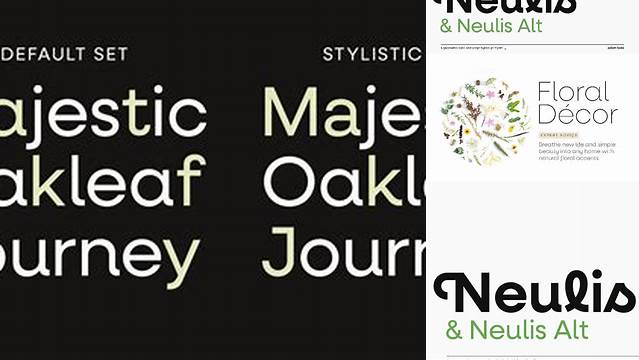
Hey guys, are you on the hunt for a stunning and versatile font family to elevate your design projects? Look no further! The Neulis Family Font is a fantastic choice, offering a blend of elegance and readability that's perfect for a wide range of applications. And the best part? You can often find a Neulis Family Font free download, making it accessible for personal and even commercial use in some cases. In this article, we'll dive deep into everything you need to know about the Neulis Family Font, covering its features, uses, and how to get your hands on this beautiful typeface. From understanding the different styles within the family to where you can safely download it, we'll equip you with all the info you need to make the most of this incredible font. So, buckle up and let's explore the world of Neulis!
As a designer, finding the right font can be a game-changer. It can transform a simple design into something truly captivating and memorable. The Neulis Family Font, with its clean lines, modern feel, and various weights, is designed to do just that. It offers a professional and polished look that works wonders for branding, web design, print materials, and more. We'll also touch on important aspects such as licensing, ensuring you're using the font legally and ethically. Whether you're a seasoned designer or just starting out, this guide will provide you with valuable insights and resources to help you make the most of the Neulis Family Font. This is going to be a fun ride, so let's jump in!
What Makes the Neulis Family Font Special?
Alright, let's talk about what makes the Neulis Family Font stand out from the crowd. This font family usually boasts a range of weights and styles, allowing you to create visual hierarchy and add depth to your designs. Think of it like having a whole toolbox of typographic options at your fingertips! Typically, you'll find weights ranging from thin to bold, and sometimes even italics and condensed versions. This variety means you can use Neulis for everything from headlines and subheadings to body text, ensuring a cohesive and visually appealing look across all your projects. The design itself often leans towards a clean, contemporary aesthetic. Its simple letterforms often exude a sense of sophistication and modernity, making it ideal for businesses and individuals looking for a professional and up-to-date look. The legibility is generally high, even at smaller sizes, which makes it a great choice for both print and digital applications.
Moreover, the availability of different styles within the Neulis Family Font provides designers with incredible flexibility. You can use a light weight for a delicate touch in a logo, a medium weight for clear body text, and a bold weight to grab attention with headlines. It's like having multiple fonts in one package, offering a wealth of possibilities without the need to juggle different font families. This versatility makes Neulis a great all-rounder, suitable for various design projects. The consistent design across all weights ensures that your designs remain harmonious, maintaining a cohesive and professional aesthetic throughout. You'll also often see that the font is designed with a good x-height, meaning the lowercase letters are a good size in relation to the uppercase, which improves readability. This is especially helpful for long passages of text.
In addition to the core styles, some versions of the Neulis Family Font might include special characters, ligatures, and even OpenType features. These additions can add extra flair and personality to your designs. Ligatures, for instance, can make certain letter combinations look smoother and more elegant. OpenType features can allow you to access alternate letterforms, giving you even more control over the visual style of your text. The designers of the font put a lot of thought into the details to make sure that it is versatile and can fit in different types of projects. This is important because it shows how well the font can work for many different types of projects.